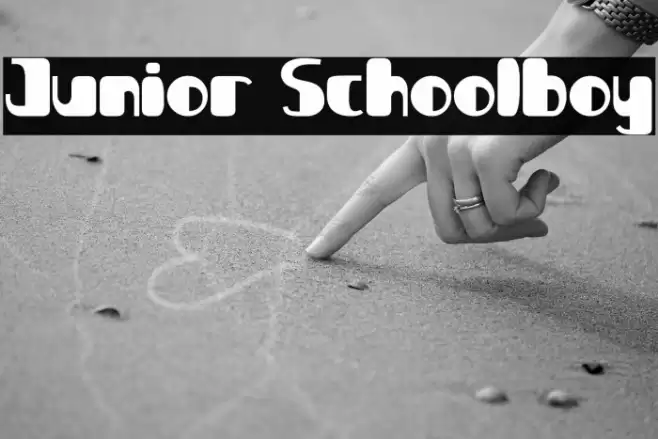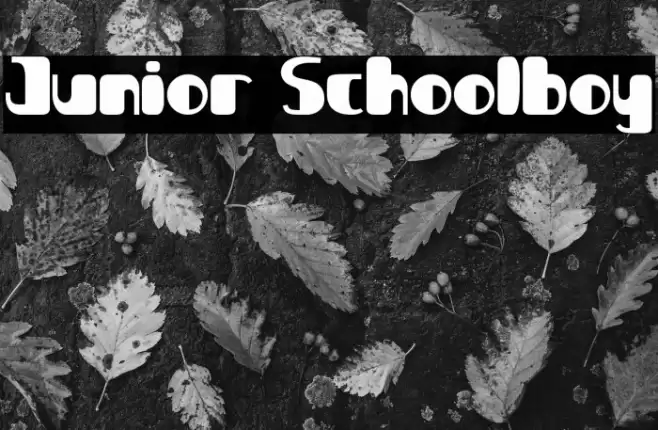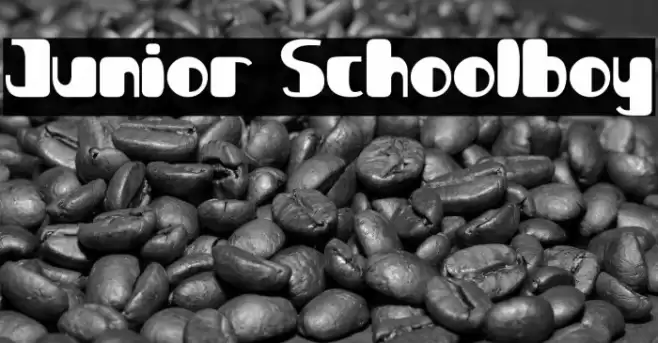
Junior Schoolboy Font
Junior Schoolboy Description
This playful and bold font features a unique, rounded design with a whimsical touch. The characters are thick and have a slightly condensed form, giving them a strong presence. The strokes are consistent in weight, providing a uniform appearance across all letters and numbers. The font includes a full set of uppercase and lowercase letters, numerals, and a variety of special characters. Its distinctive style makes it suitable for projects that require a fun and engaging look, such as children's books, educational materials, or playful branding. The rounded edges and smooth curves contribute to its friendly and approachable feel.
| Proposed Projects | Ideal for children's books, educational materials, playful branding, and creative posters. |